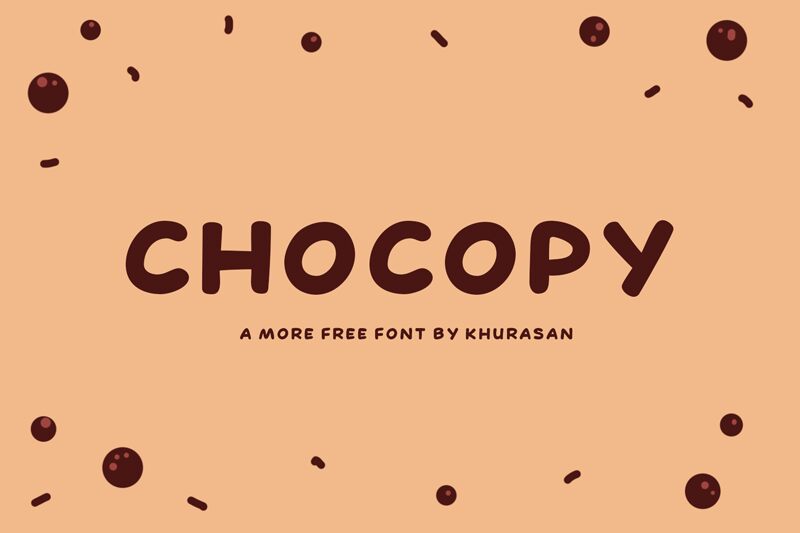
Chocopy
Chocopy, the whimsical display font from Khurasan, is perfect for any project that requires a playful touch. With its bold weight and semi-expanded width, Chocopy is designed to stand out and make a statement. Whether you're creating a children's book cover or designing a fun poster for an event, this cartoon-style font will add a touch of personality to your project. So why settle for boring when you can use Chocopy to infuse some fun into your designs? Try it out today and see the difference it makes!